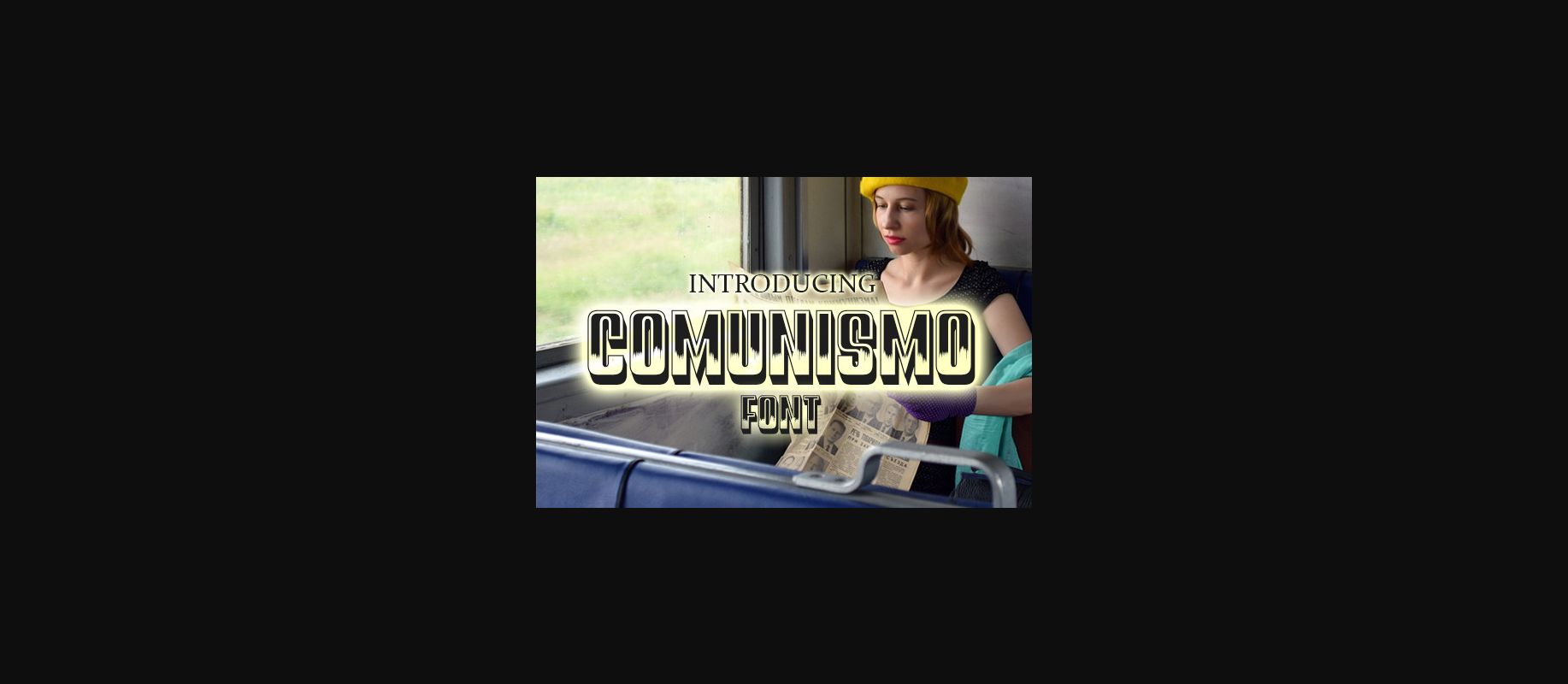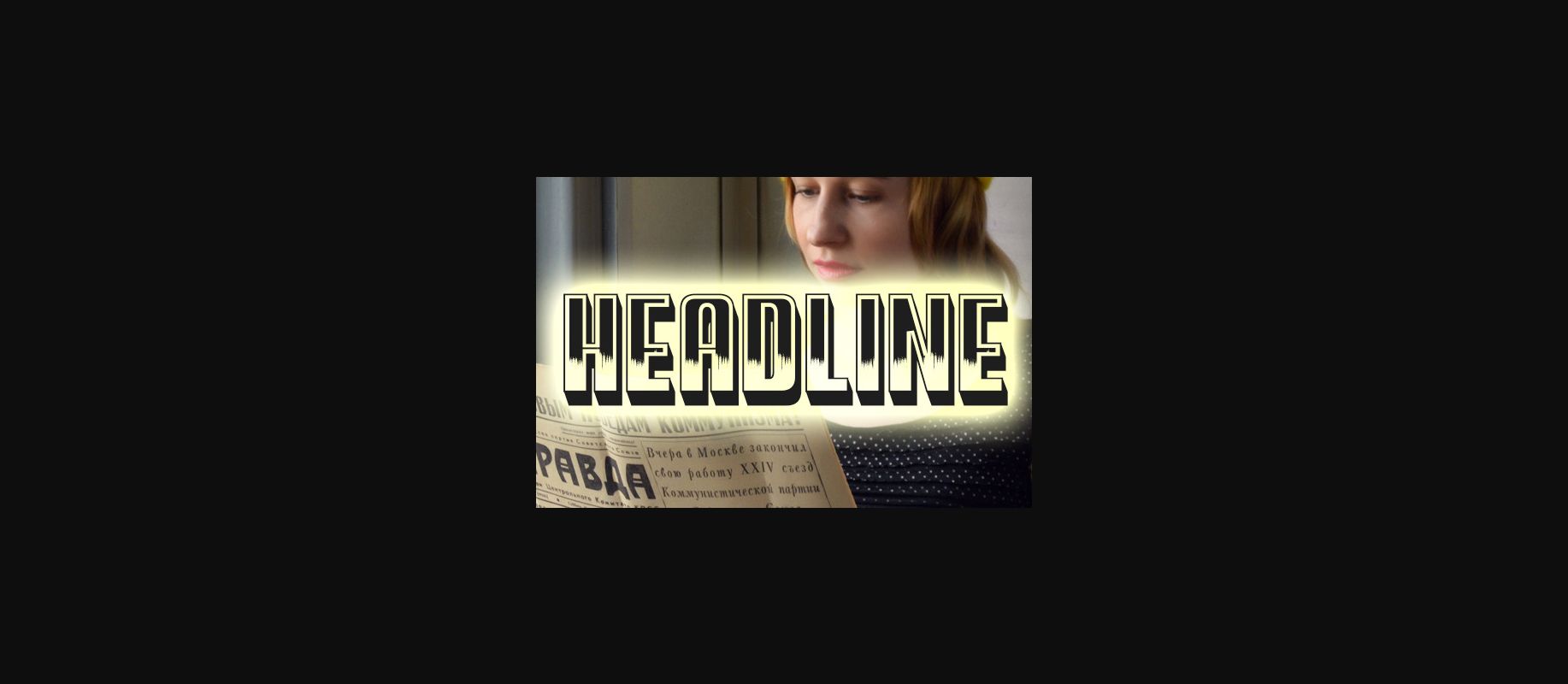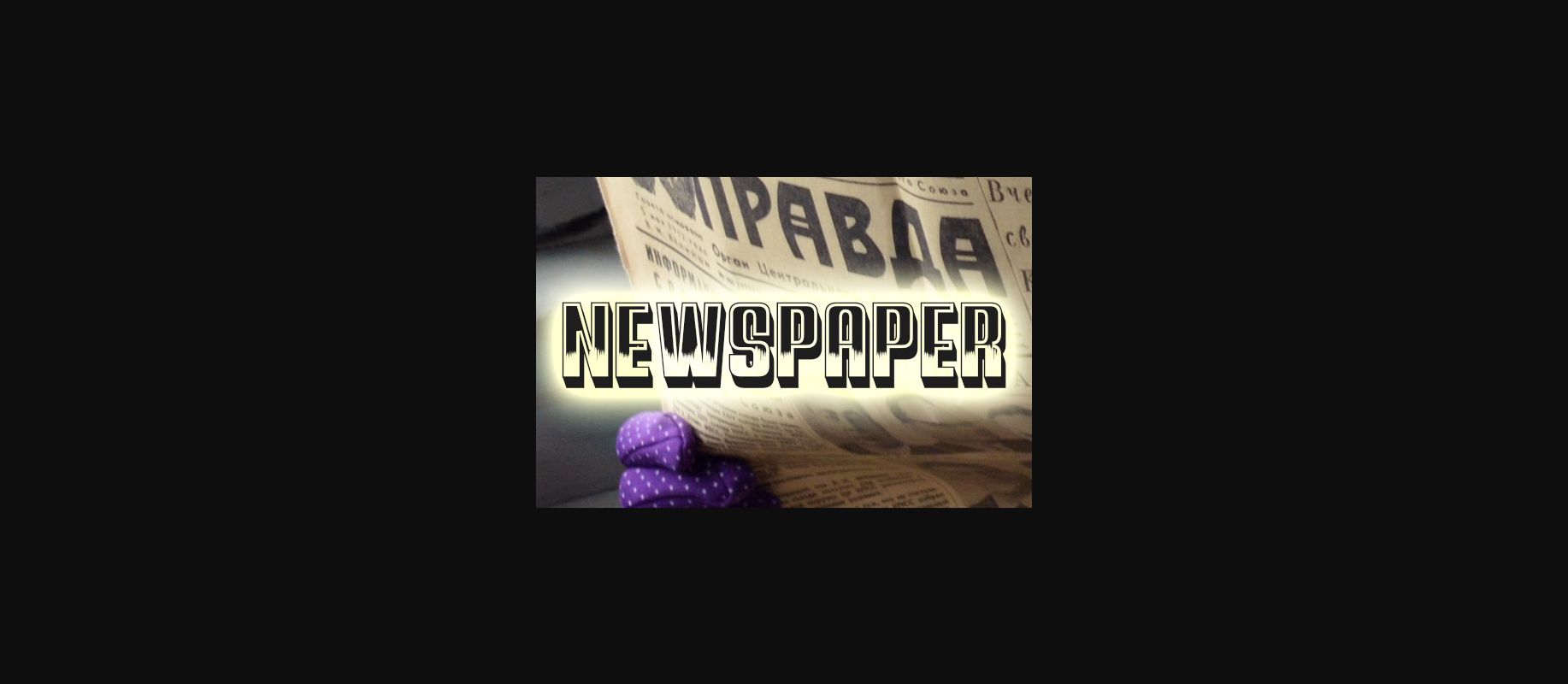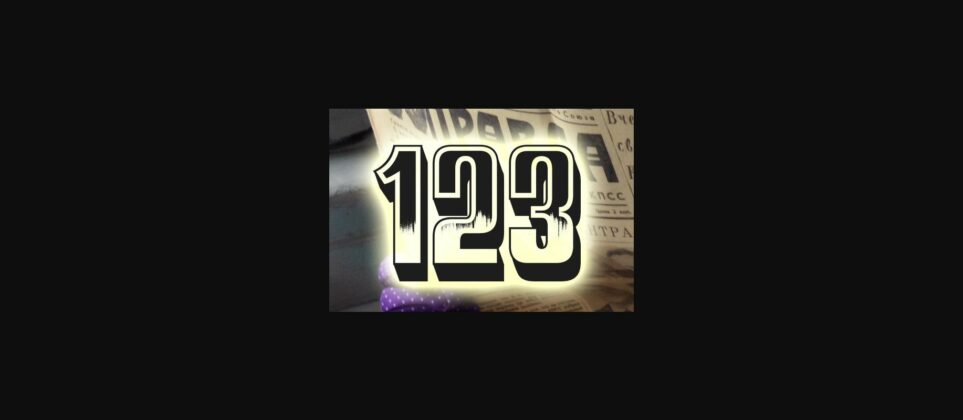
Comunismo Font
About Comunismo Font
Comunismo is an awesome 3D decorative font that will fit perfectly on each of your designs. Have fun with this beautiful font and explore its endless variations.